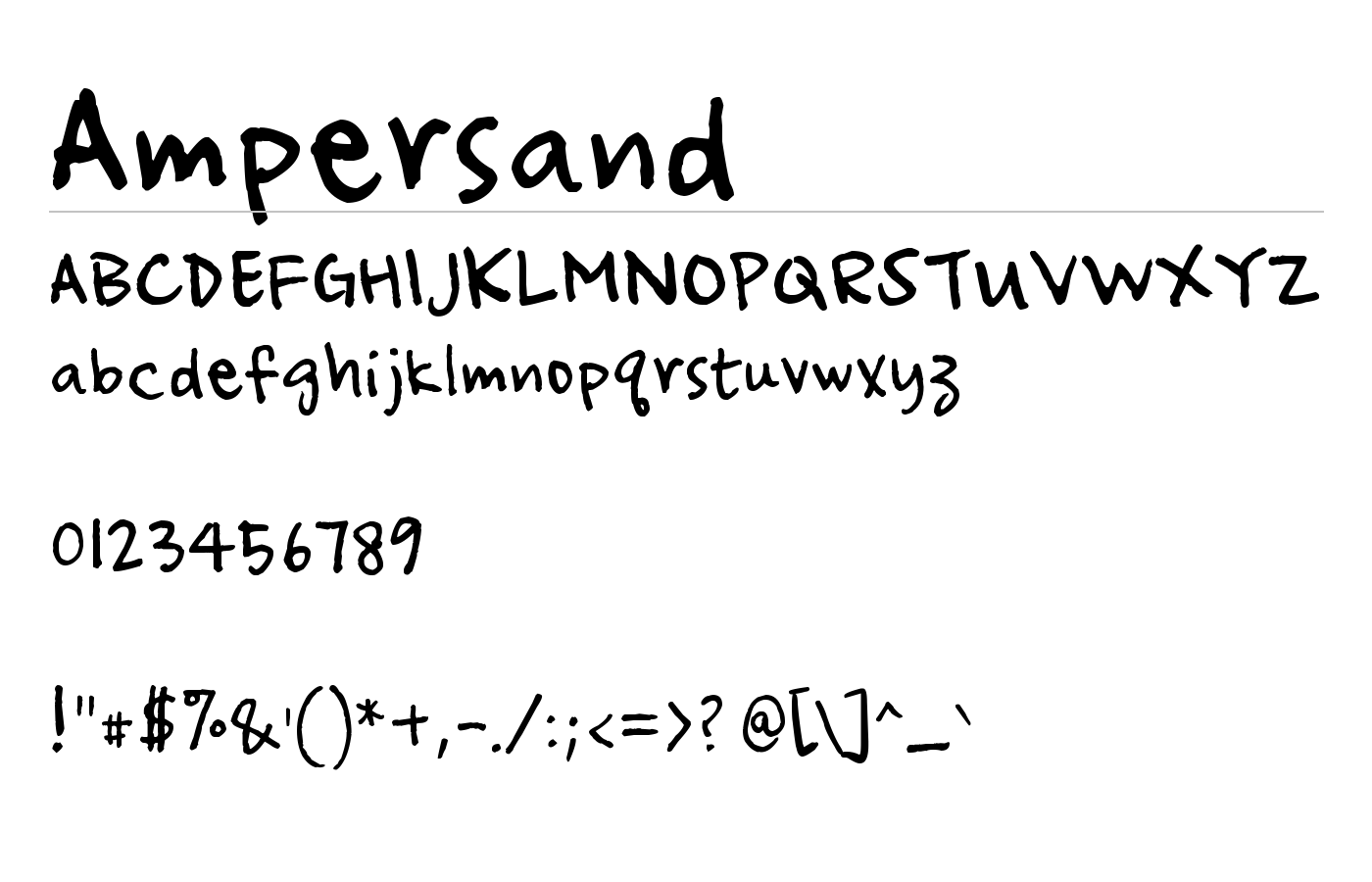
Ampersand Font is a casual, handwritten sans serif with a lively, friendly feel, featuring irregular strokes that imitate natural penmanship. Its moderate weight and slightly condensed letterforms give it a playful yet legible style, perfect for informal branding, invitations, or any design seeking a personal touch. This font works well in creative projects where warmth and approachability are key.
Ampersand Font
About Ampersand Font
| Font family | Ampersand Font |